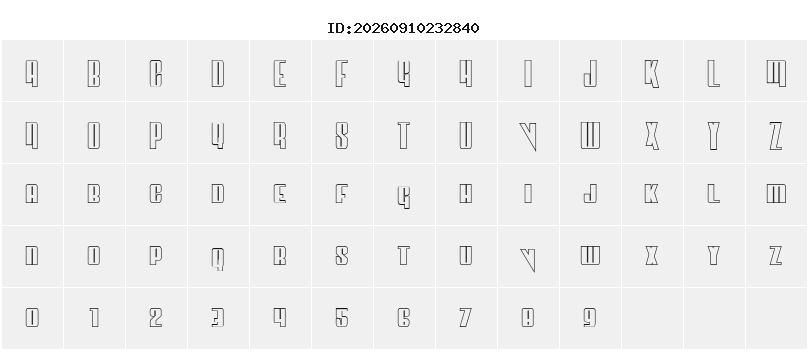
Vindicator Outline Preview
• Font Name: Vindicator Outline
• Full Font Name: Vindicator Outline Regular
About Vindicator Outline.ttf
Vindicator Outline.ttf is a modern, elegant sans-serif font designed for ultimate readability and visual harmony. Perfect for branding, headlines, web design, and print materials.